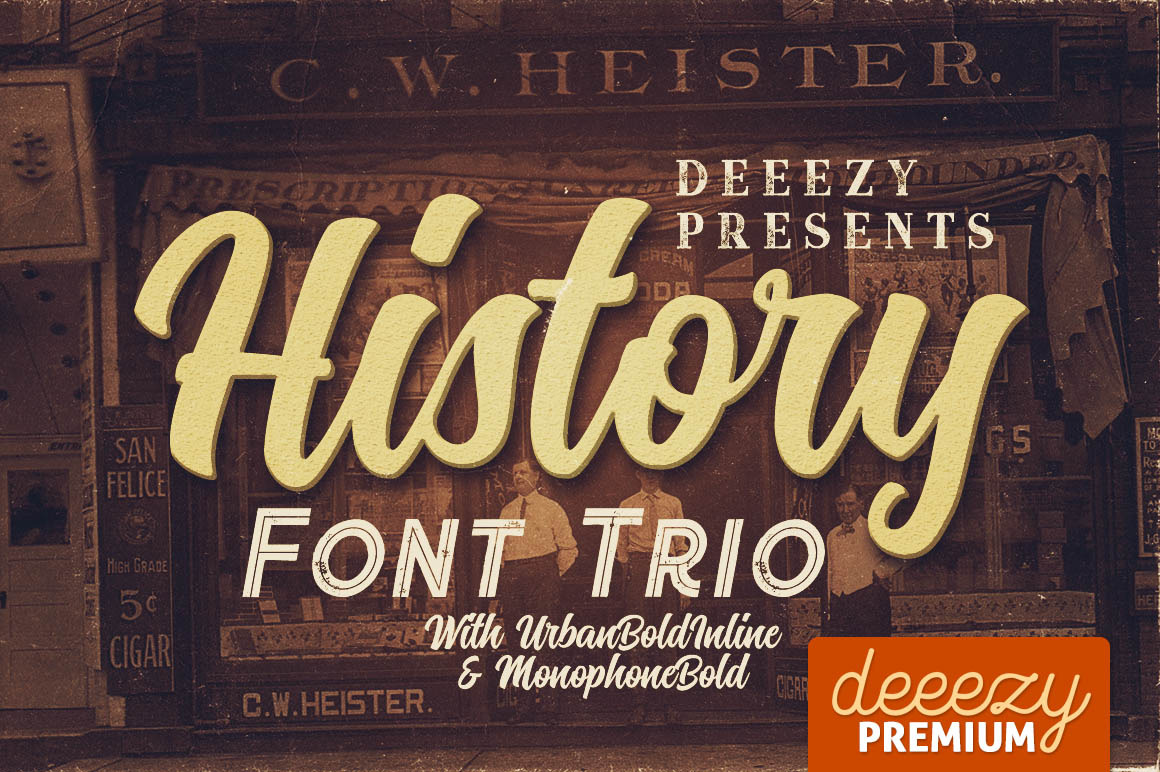
History Font Trio
Cool retro or vintage style font trio for your new projects. First font is elegant & bold script font with multi language support and lot of stylistic alternates. Second & third font is cool display font with regular and grunge version and without multi language support. You'll find here also 2 graphics bundles as a bonus!